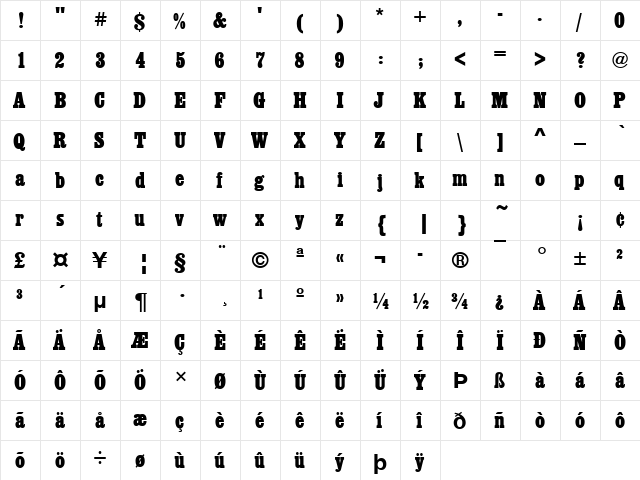
EgyptienneTBolCon Regular
Design Context for EgyptienneTBolCon Typeface
EgyptienneTBolCon takes a measured approach to typography — its balanced proportions and neutral character make it a reliable workhorse for both digital and print work.
Pro Tip: Use EgyptienneTBolCon in both headline and body roles to test its range before committing to a single application.